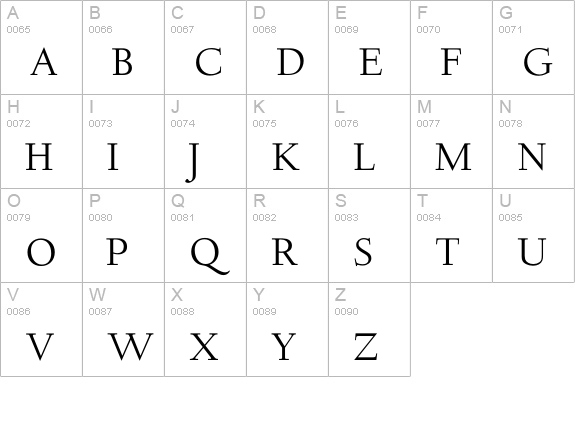
DeepdeneH font is a stylish and sophisticated typeface that exudes elegance and charm. With its intricate details and sleek design, this font is perfect for adding a touch of luxury to any project. Whether you're designing a wedding invitation, creating a logo for a high-end brand, or simply adding a touch of class to your website, DeepdeneH is sure to impress. What's even better is that DeepdeneH font is completely free to download at FontsMarket.com. You can easily access this exquisite font and use it for all your creative endeavors without any cost. Don't miss out on the opportunity to enhance your designs with the beauty and sophistication of DeepdeneH font. Download it today and elevate your projects to new heights of elegance and style.